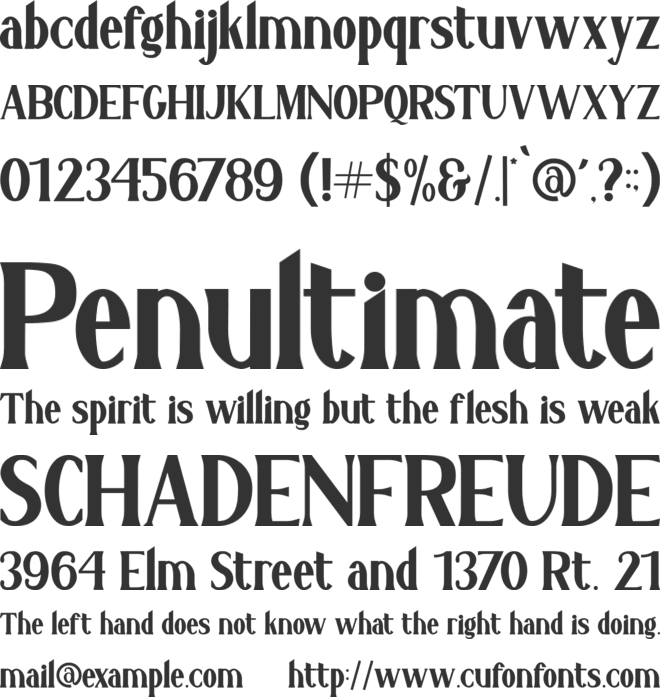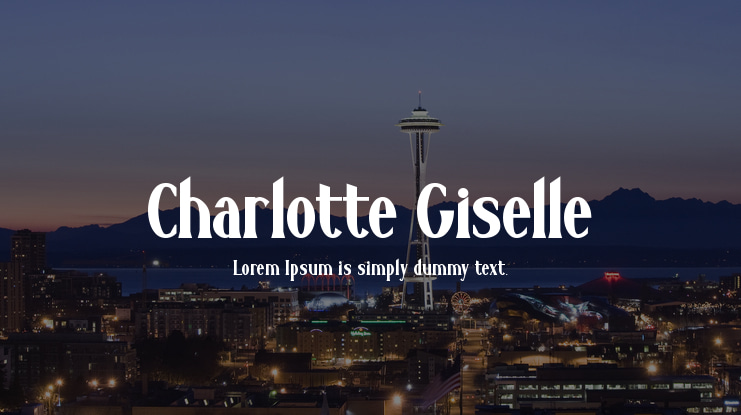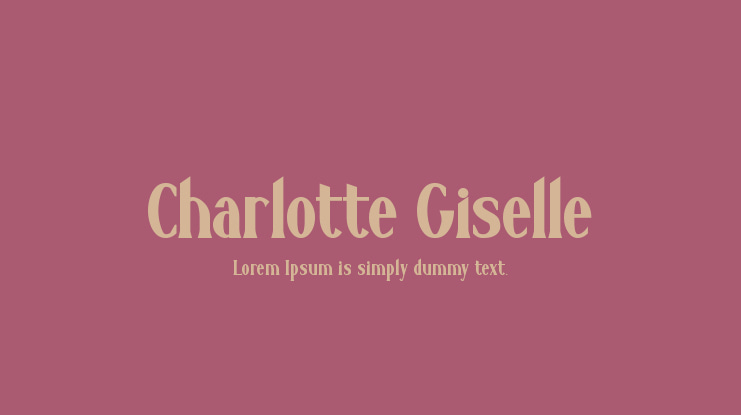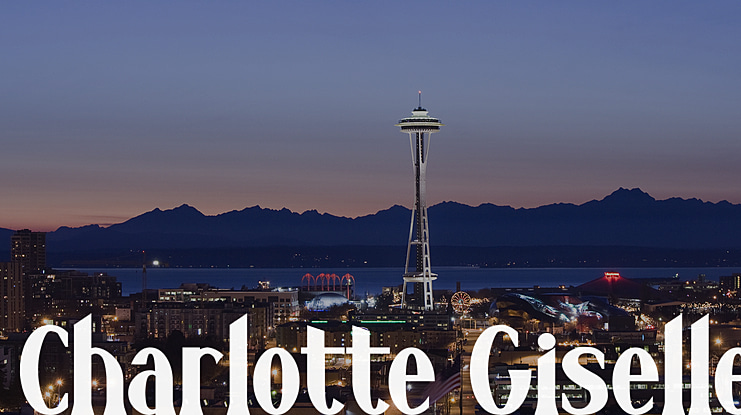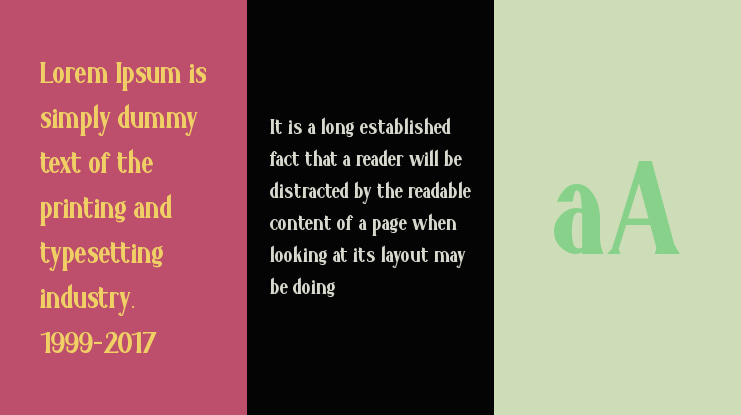
Charlotte Giselle Font Family
Introducing our new release, Charlotte Giselle Display Typeface. This typeset is perfect for brand logos, invitations, greeting cards, or even any kind of project. With multilingual features and style variations, this typeface would further enhance the aesthetical aspect of your work.